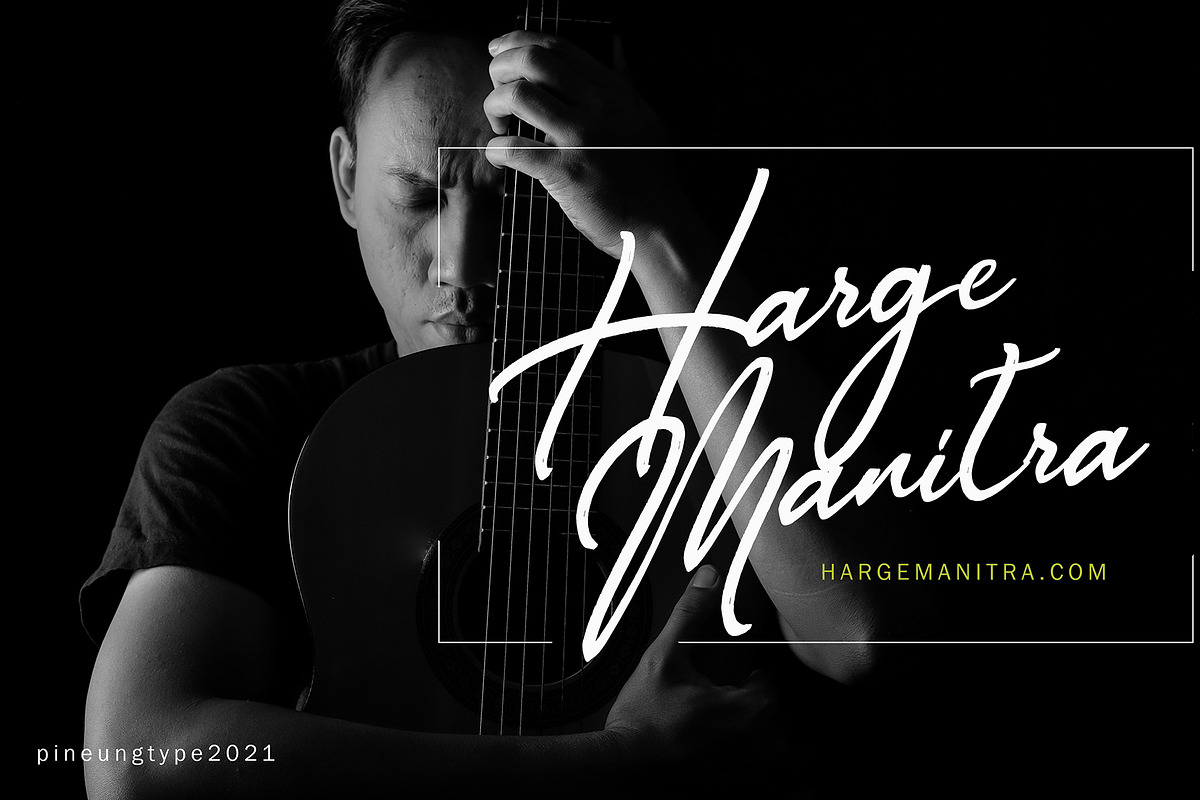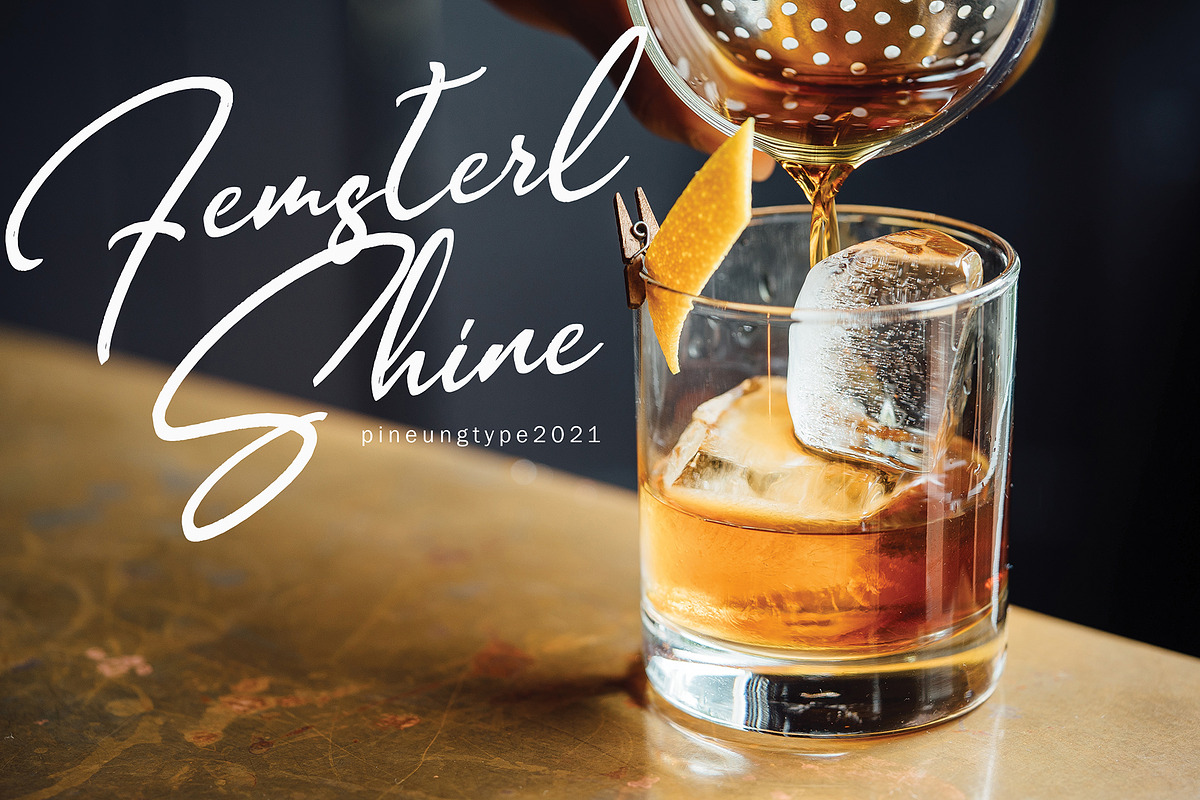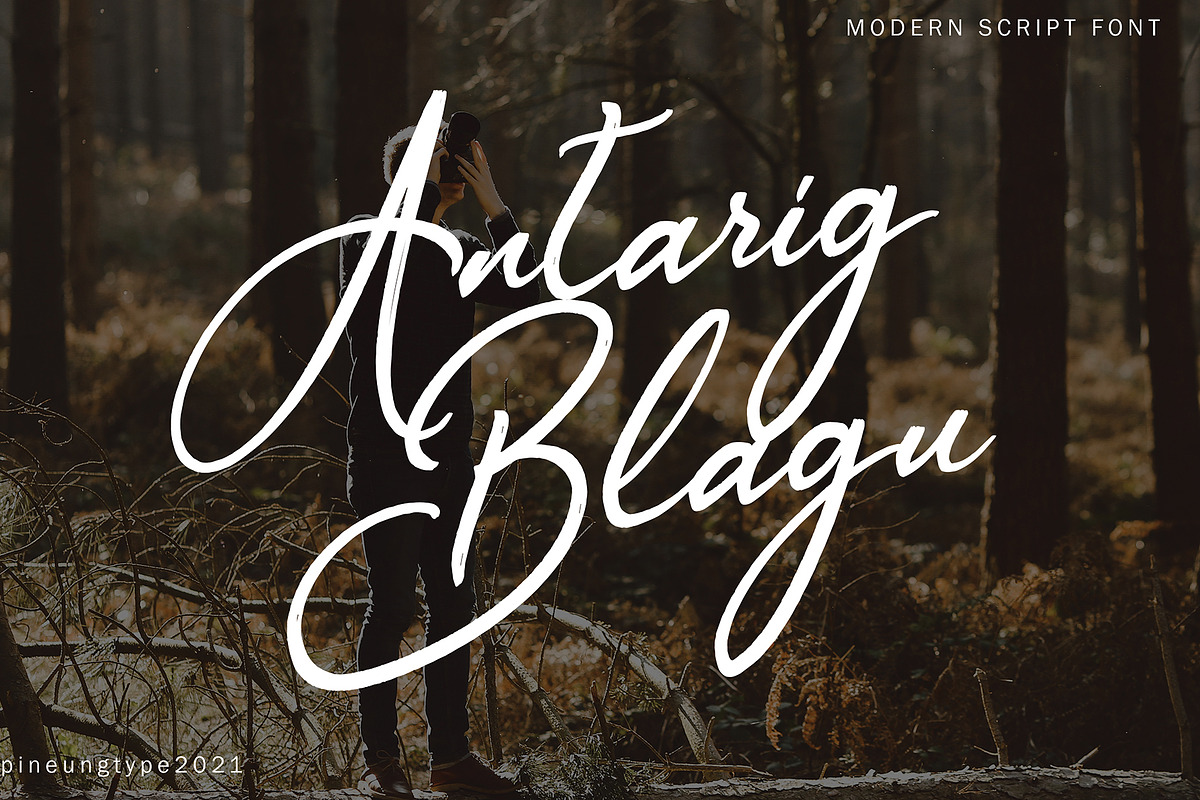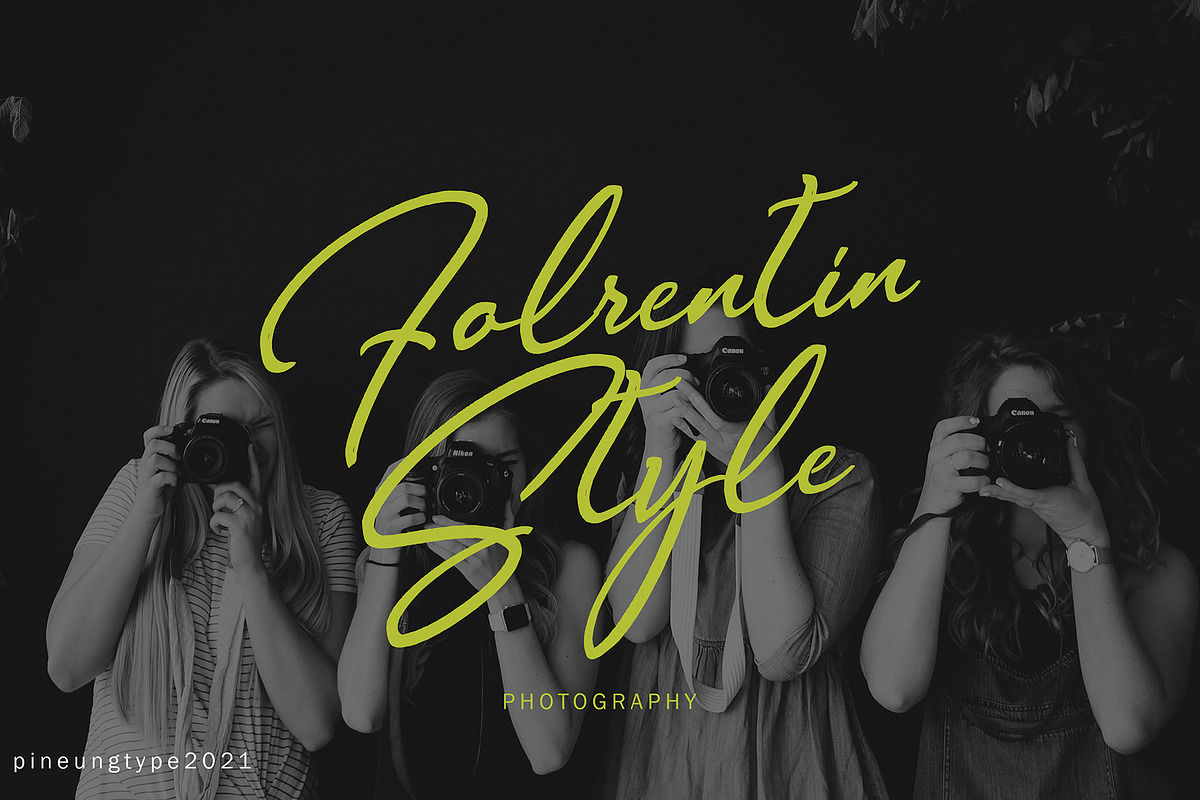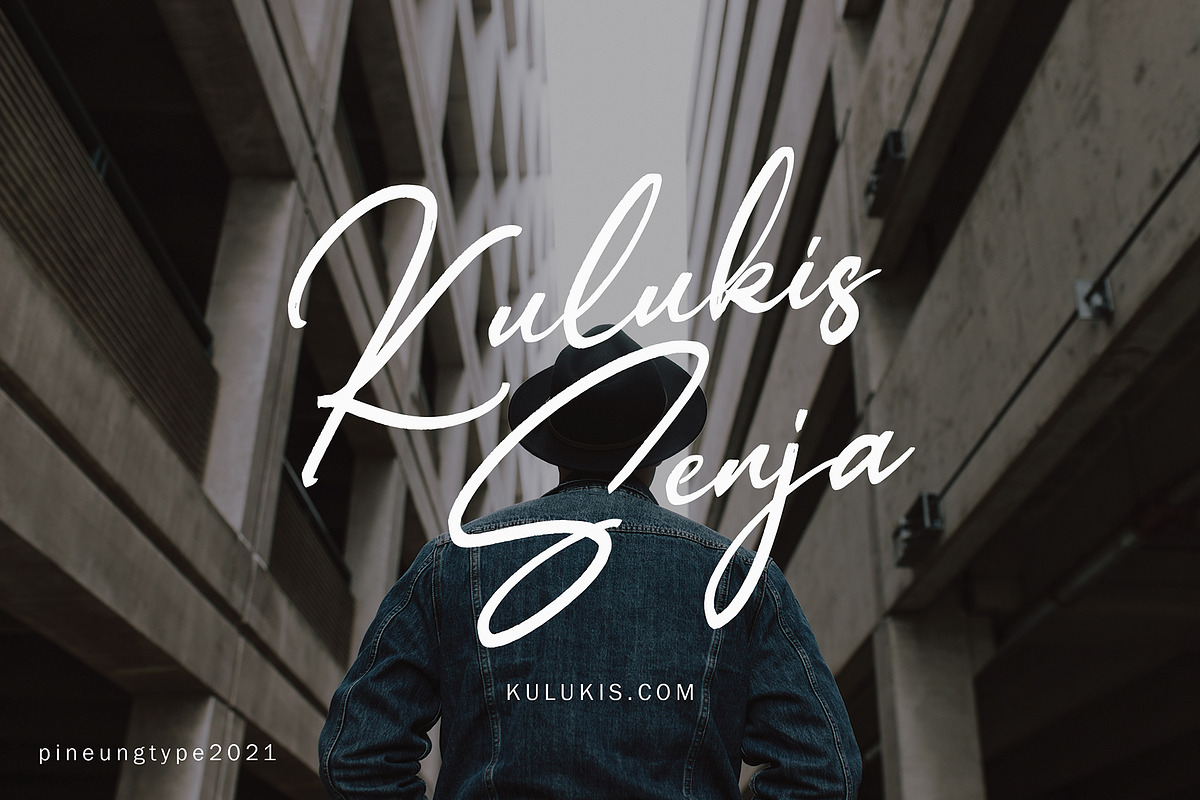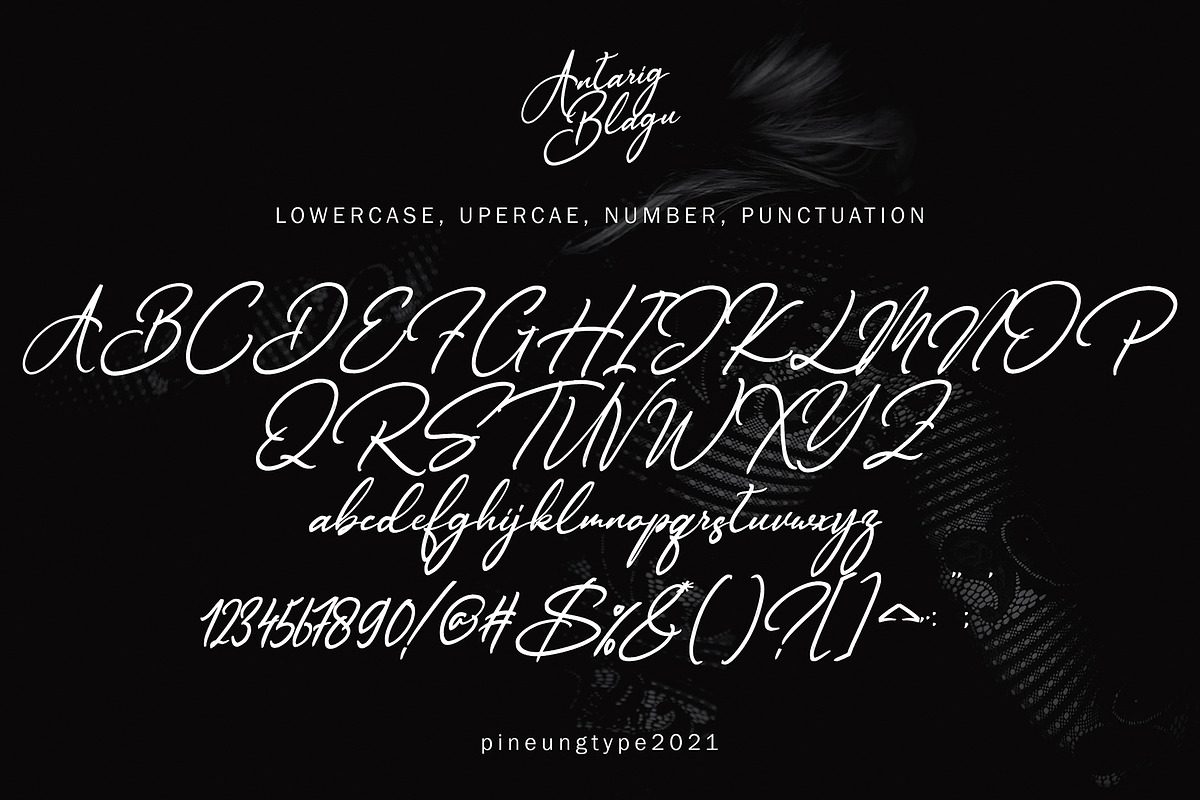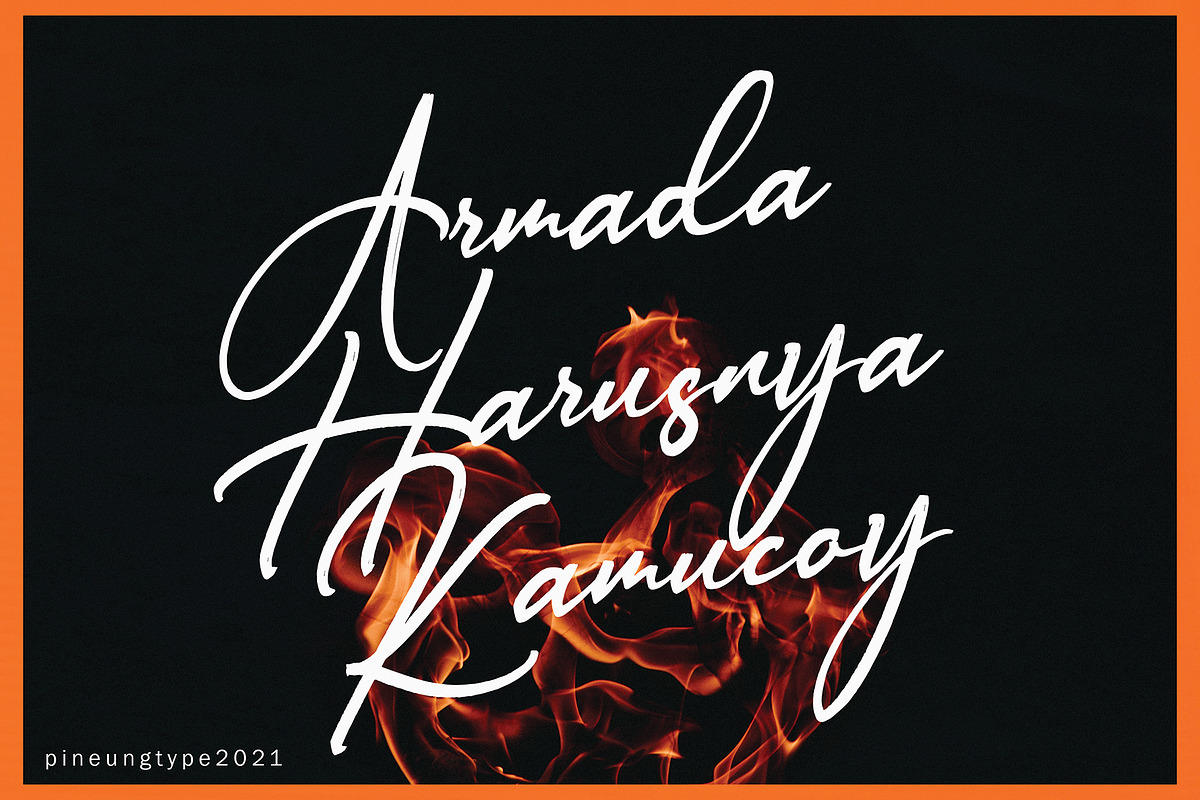
Antarig Blagu
Antarig Blagu font with new style, this font will perfect for many different project ex: quotes, logo, blog header, poster, banding, fashion, apparel, letter, invitation, stationery, etc...